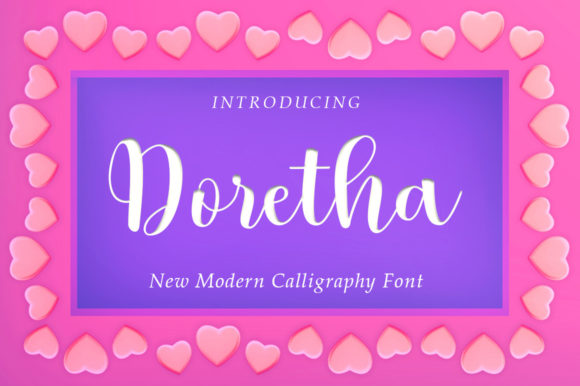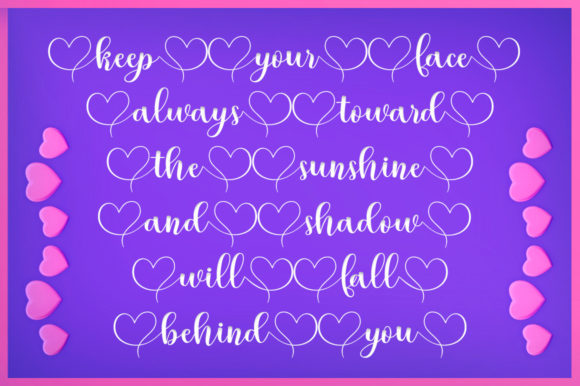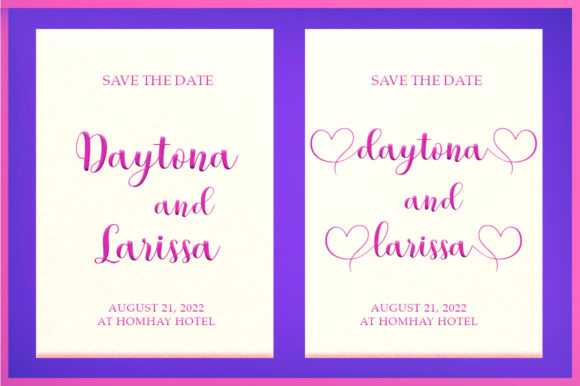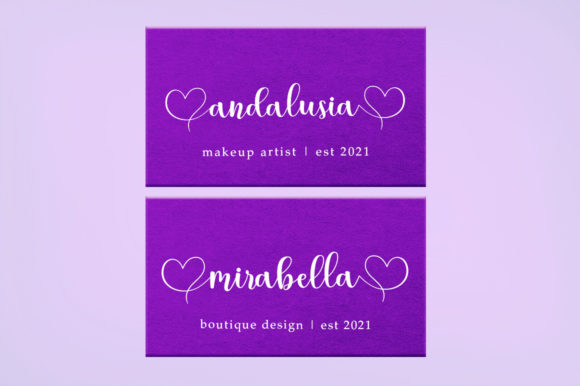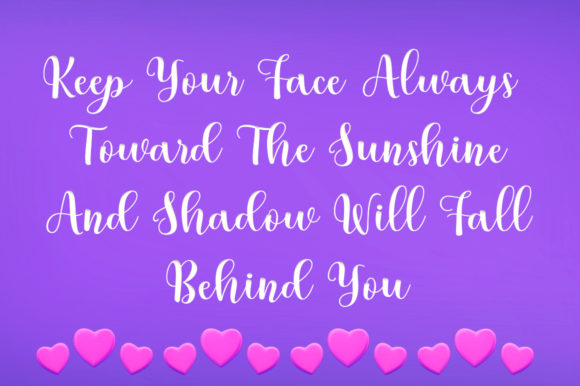
About Doretha Script Font
Doretha Script is a stunning and romantic calligraphy font that adds a touch of luxury to any design project. With its beautifully flowing characters and dancing baseline, this font brings elegance and charm to your creations.
Whether you’re working on wedding invitations, branding materials, logo designs, or any other project that requires a romantic and sophisticated look, Doretha Script is the perfect choice. Its graceful strokes and intricate details make every letter a work of art.
One of the standout features of Doretha Script is its extensive set of glyphs and ligatures. With PUA encoding, accessing these special characters is a breeze, allowing you to add even more variety and style to your designs. From decorative swashes to stylish ligatures, you’ll have a wealth of options to play with.
The luxury spark that Doretha Script brings to your designs is undeniable. Its elegant and refined nature makes it suitable for a wide range of applications. Whether you’re designing wedding stationery, elegant branding materials, or creating romantic quotes and social media graphics, Doretha Script will elevate your work to new heights.
The beauty of Doretha Script lies not only in its aesthetic appeal but also in its versatility. It can seamlessly adapt to different design styles and themes, from vintage and classic to modern and contemporary. The timeless quality of the font ensures that it remains relevant and captivating in any context.
In summary, Doretha Script is a romantic and sweet calligraphy font that adds a touch of luxury and elegance to your designs. With its dancing baseline, extensive glyph set, and PUA encoding, it offers you the freedom to create stunning and personalized creations. Embrace the beauty of Doretha Script and let it bring your design projects to life.